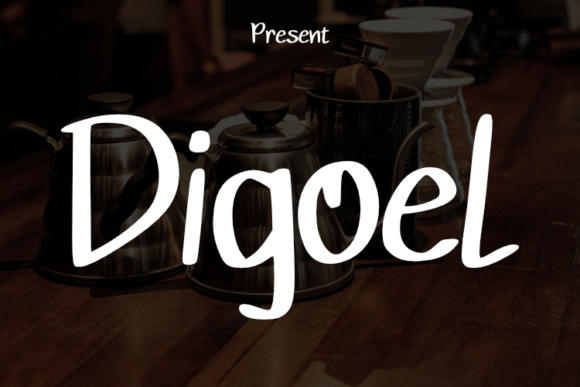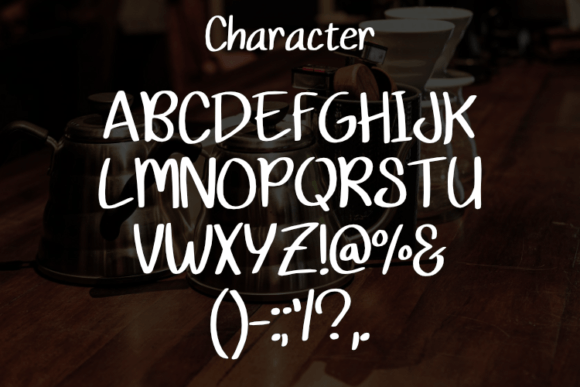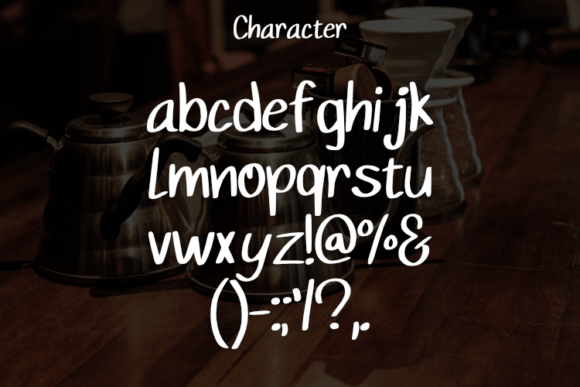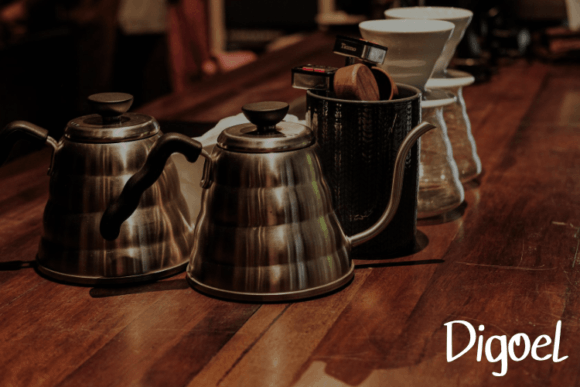
Digoel Font
About Digoel Font
**Elevate Your Designs with Digoel: Where Simplicity Meets Luxury**
In the world of typography, **Digoel** stands tall as a script typeface that embodies the perfect balance between simplicity and luxury. Its design, marked by a refreshing simplicity and a modern aesthetic, speaks volumes about elegance and sophistication. Imagine a font that effortlessly blends contemporary style with timeless class – that’s the captivating allure of Digoel.
**A Symphony of Simplicity and Modernity:**
At its essence, **Digoel** is a harmonious blend of simplicity and modern elegance. Its clean lines and uncluttered style make it a versatile choice for a wide array of design projects. The letters, crafted with precision, exude a sense of sophistication while maintaining an approachable simplicity. It’s not just a font; it’s a canvas where minimalism meets luxury, creating a visual symphony that resonates with viewers.
**Perfect for Every Elegant Endeavor:**
Versatility defines **Digoel**. It’s not confined to a singular purpose; it’s designed to enhance a multitude of creative endeavors. Picture it gracing an elegant logo, where its sleek curves create an unforgettable brand mark. Envision it adorning book or movie design titles, adding a touch of contemporary allure. Whether it’s fashion brands, magazines, clothing labels, quotes, or any other project that craves sophistication, Digoel elevates the visual appeal, making every design a statement of refined taste.
**Elegance Redefined:**
What sets **Digoel** apart is its ability to redefine elegance. It’s not about flashy embellishments; it’s about the quiet confidence of simplicity. The font effortlessly transforms ordinary text into visual poetry, making every word a work of art. Imagine it in fashion branding, where it embodies the chic elegance of high-end couture. Picture it in magazine layouts, where its understated charm lets the content shine. Digoel becomes the silent protagonist, enhancing the overall aesthetics with its understated luxury.
**Crafting Timeless Impressions:**
In a world where first impressions matter, **Digoel** becomes your secret weapon for leaving a lasting mark. Its modern look and simple style transcend trends, ensuring your designs stand the test of time. It’s not just a font; it’s an investment in lasting impressions. Whether you’re designing a fashion line, creating a magazine layout, or crafting a luxurious logo, Digoel becomes the elegant signature that defines your brand’s identity.
**In Conclusion:**
In the realm of design, where sophistication meets subtlety, **Digoel** reigns supreme. It’s not just a font; it’s a statement of refined taste and understated luxury. So, embrace the elegance of Digoel, and let your designs speak with the quiet confidence of modern simplicity. With this font, your projects become not just visual elements but expressions of timeless elegance. Welcome to a world where every letter is a brushstroke of grace and every design is a masterpiece – the enchanting world of **Digoel**.